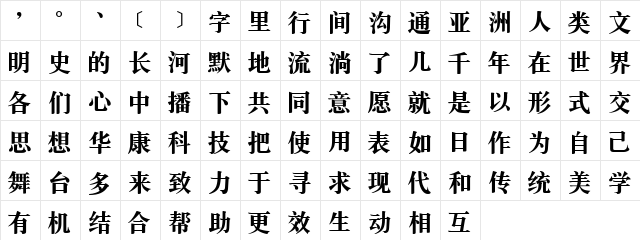
DFSongXBold1BGB Regular Font Preview
DFSongXBold1BGB Regular
Design Context for DFSongXBold1BGB Typeface
DFSongXBold1BGB is a composed and adaptable typeface that performs quietly and consistently across a wide range of design contexts. The heavy weight commands attention and anchors typographic hierarchies.